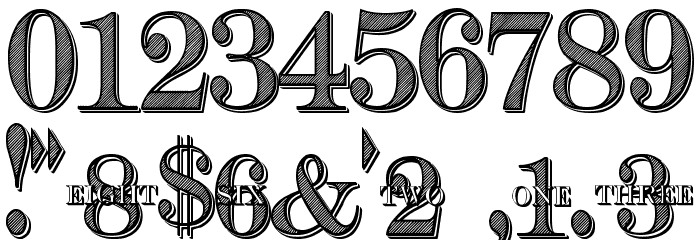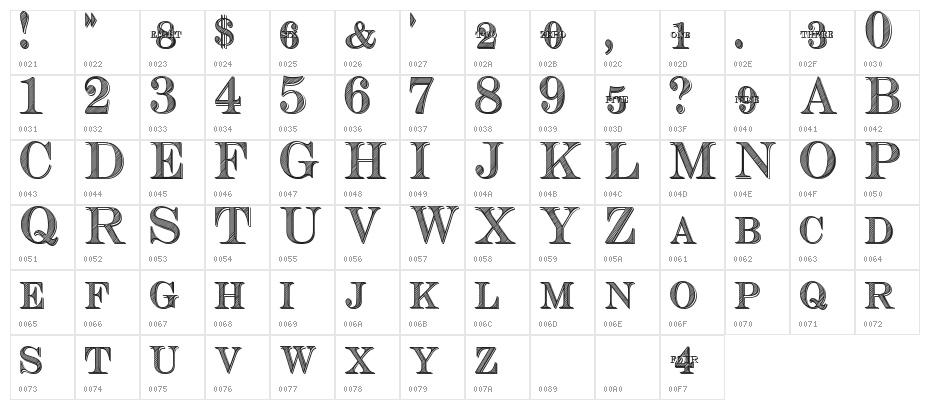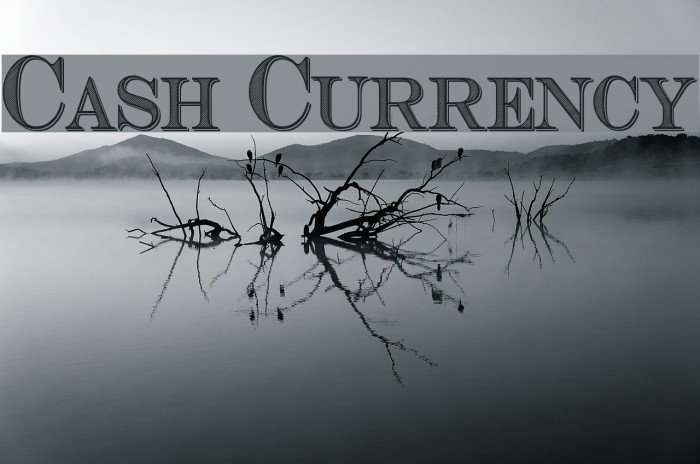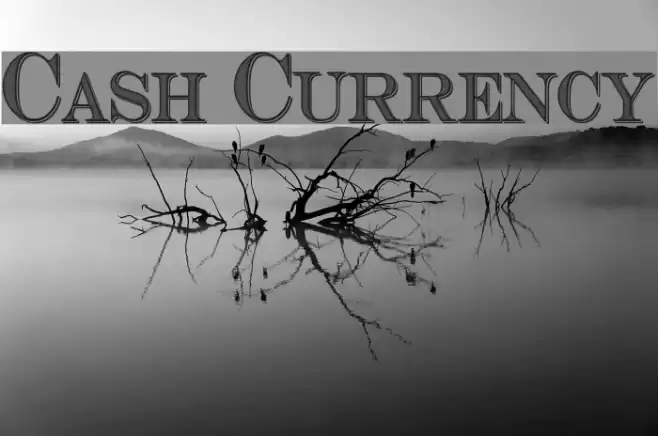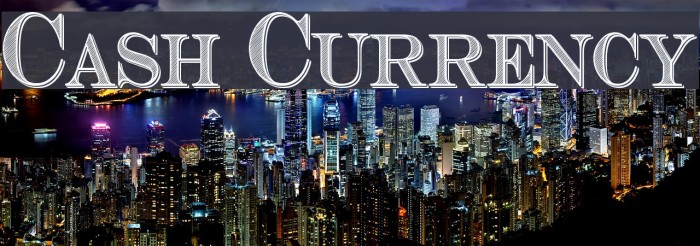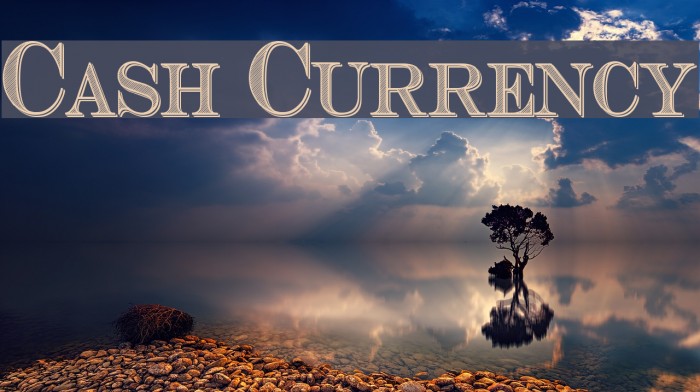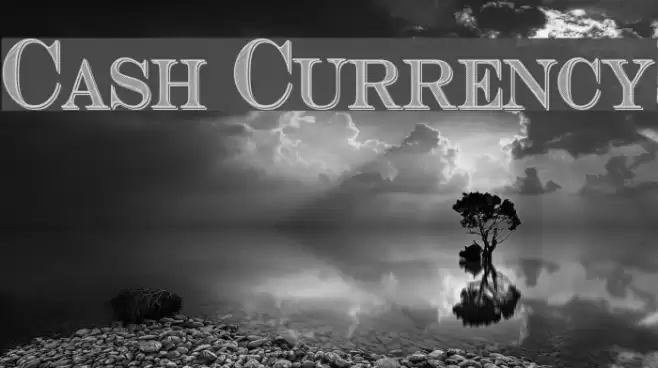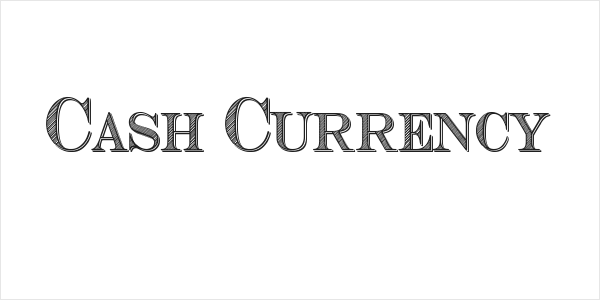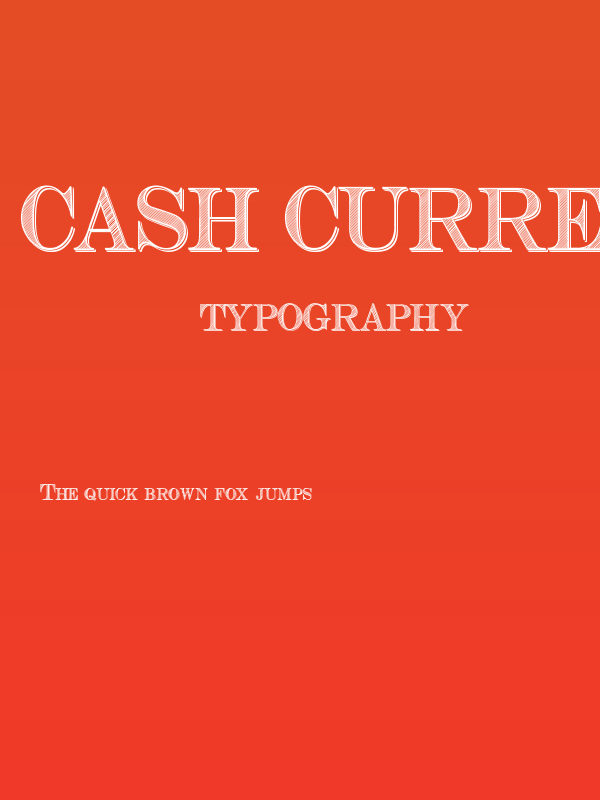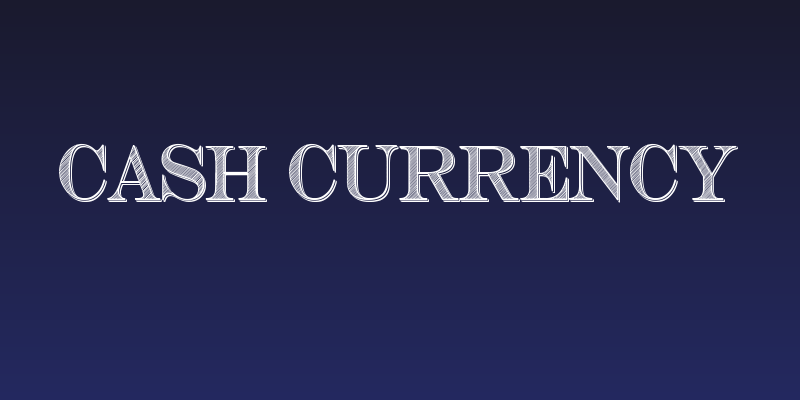
Cash Currency Font
Cash Currency Description
This font features a bold, decorative style with intricate line shading that gives it a three-dimensional appearance. The uppercase letters are prominent and commanding, while the numerals and special characters maintain the same boldness and decorative flair. The font's design is reminiscent of traditional currency and financial documents, with a classic serif structure that adds to its authoritative and formal look. The shading within each character adds depth and texture, making it suitable for projects that require a touch of elegance and sophistication.
| Overall Style | Classic, Decorative |
| Use Case | Headlines, Logos, Certificates |
| Proposed Projects | Ideal for financial documents, certificates, branding for luxury products, or any project requiring a classic and sophisticated look. |